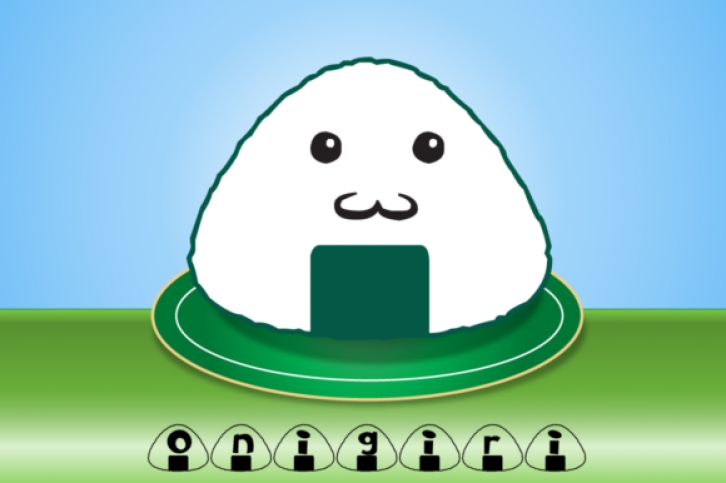
Cute and adorable, they’re…Onigiri! Designed to evoke the cuteness of Japanese mascots with the informality of script, these little riceballs o’ text are sure to please!